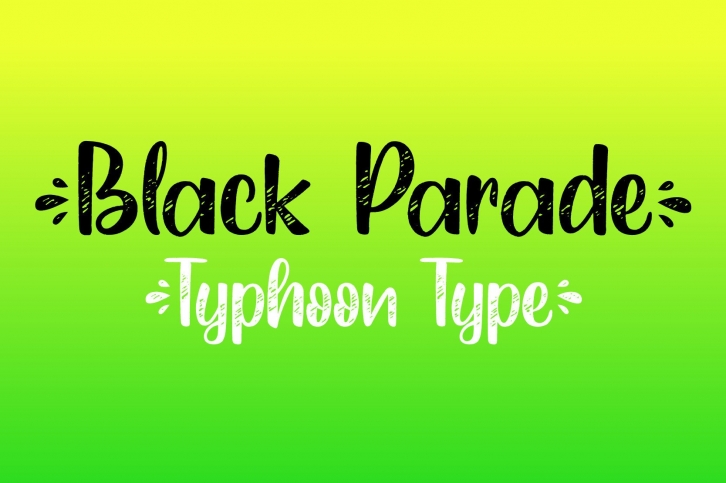
Black Parade is a cute and casual handwritten font with an incredibly friendly feel. It’s perfect for logos, branding, social media posts, greeting cards, and much more!